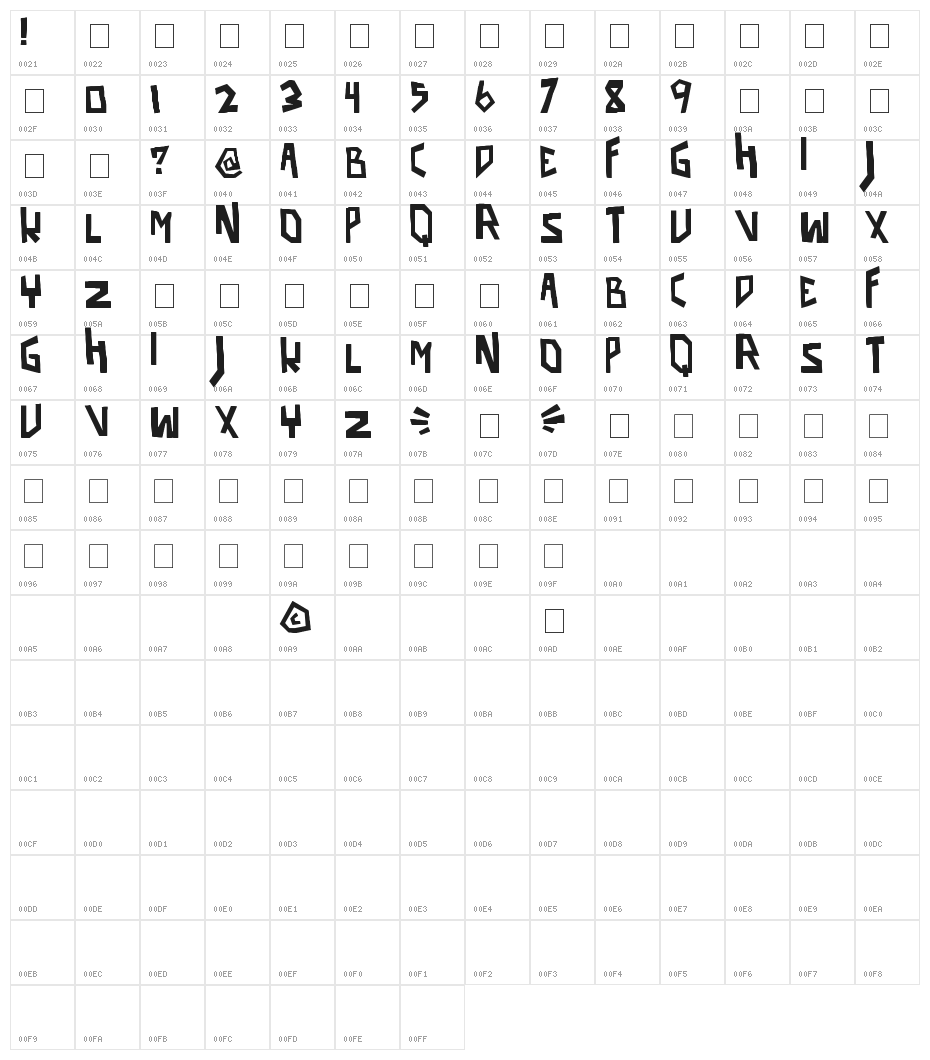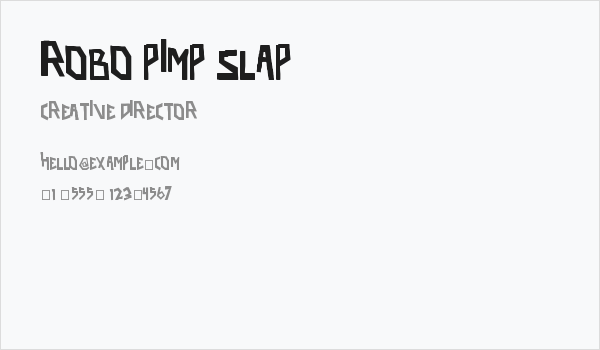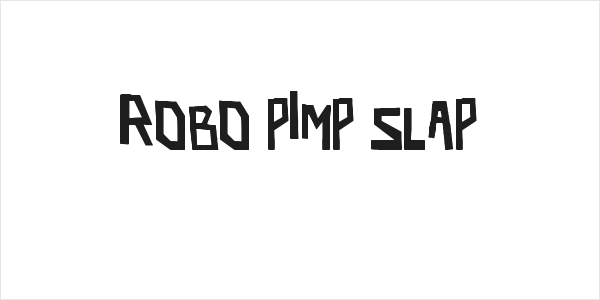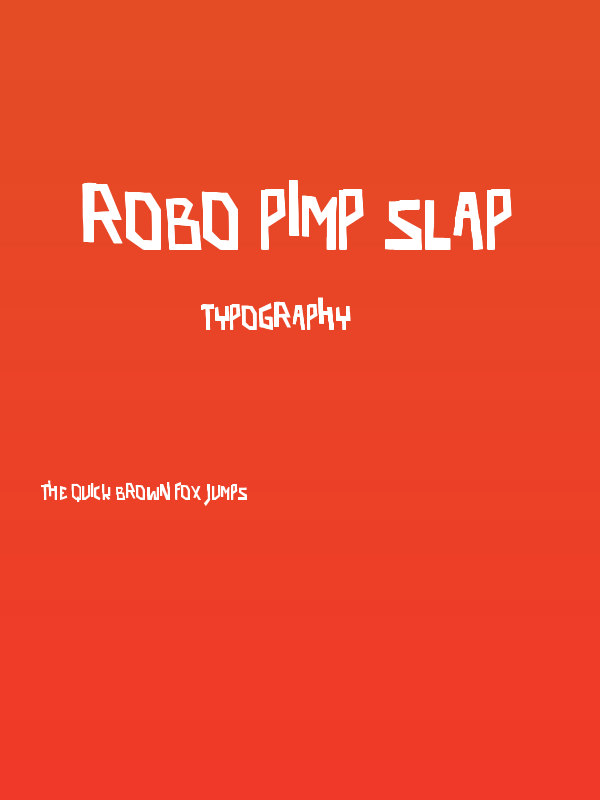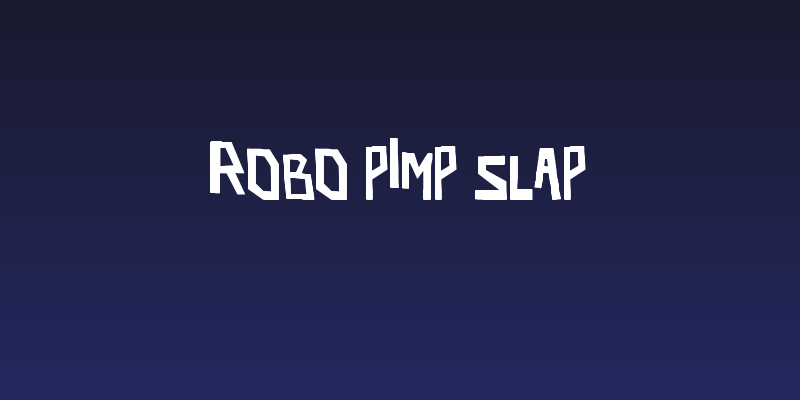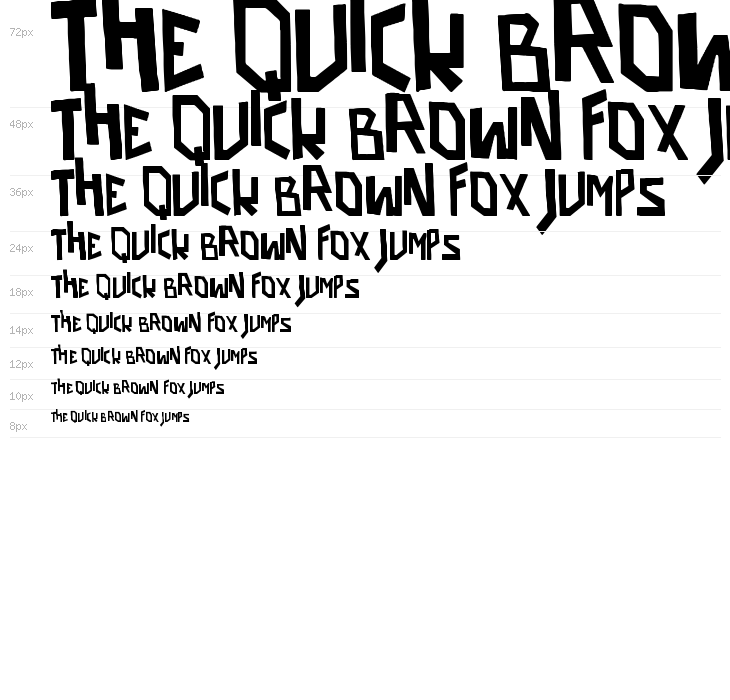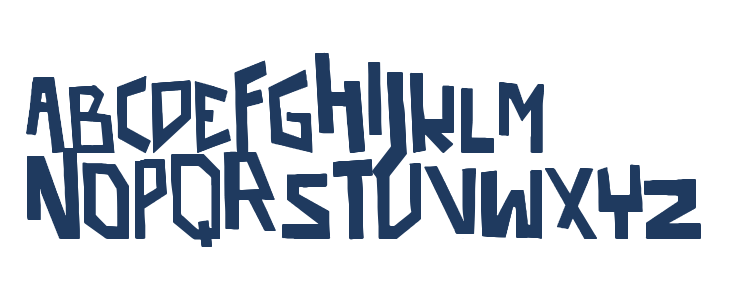
robo pimp slap Font
robo pimp slap Description
This font features a bold, angular design with a distinctly futuristic and edgy appearance. The characters are constructed with sharp, geometric lines, giving them a robotic and mechanical feel. The uppercase letters are particularly striking, with exaggerated angles and a sense of movement. The numbers and special characters maintain this bold style, ensuring consistency across all elements. The font's unique style makes it stand out, ideal for projects that require a modern and unconventional look.
Proposed ProjectsIdeal for sci-fi themed posters, video game titles, tech branding, and edgy graphic design projects.